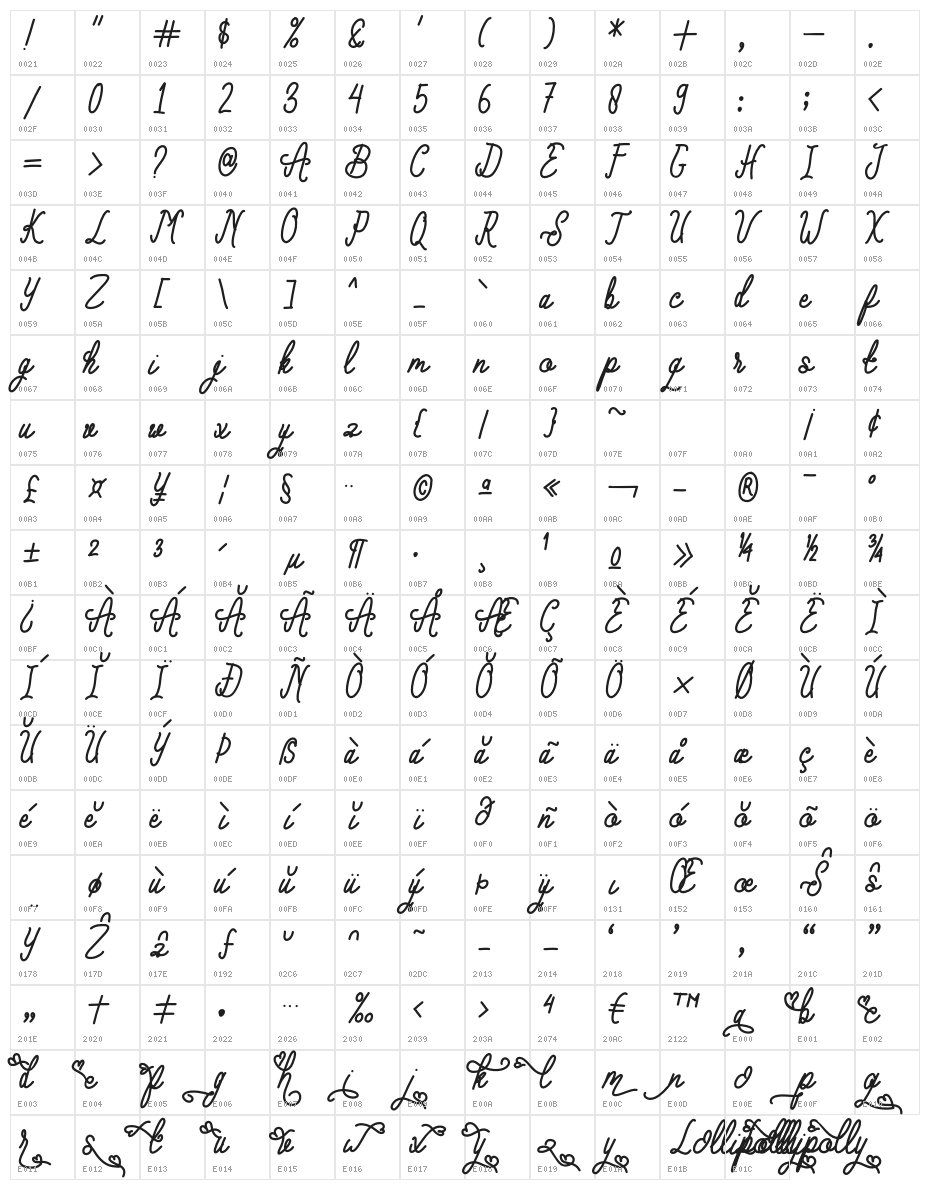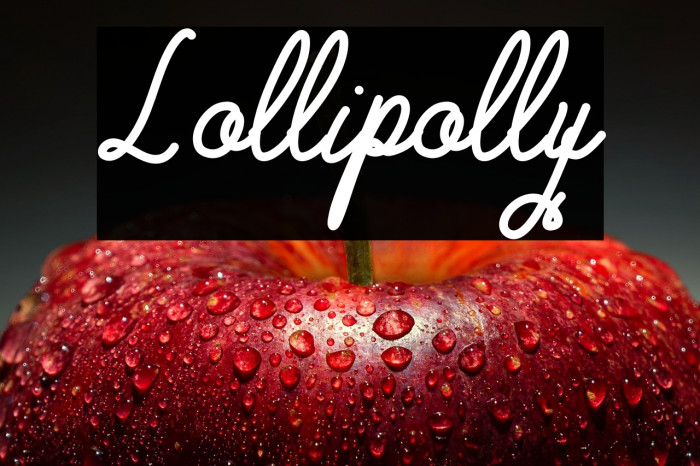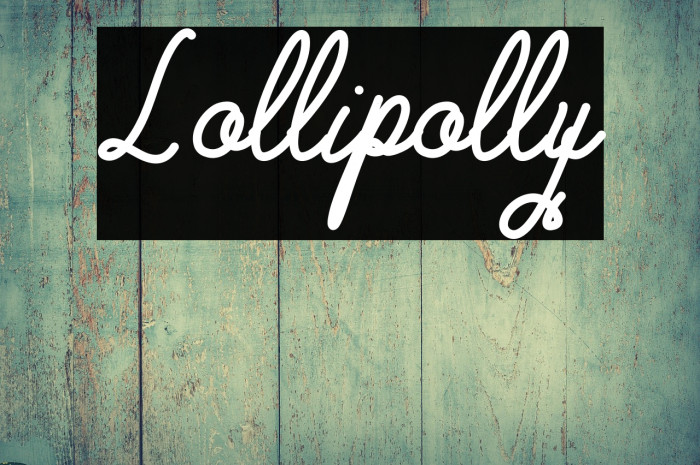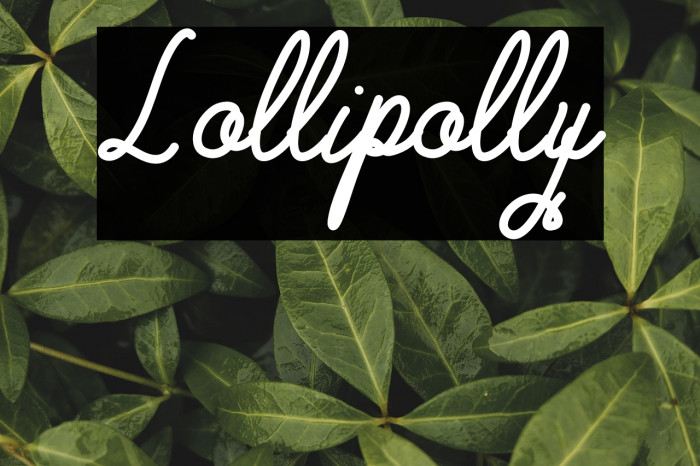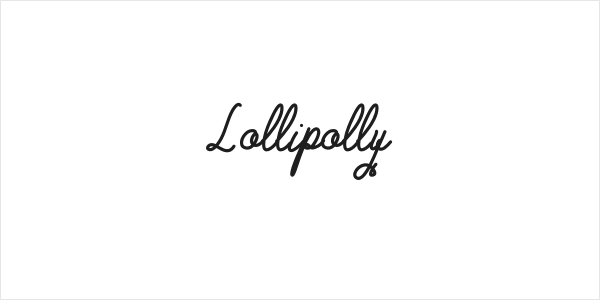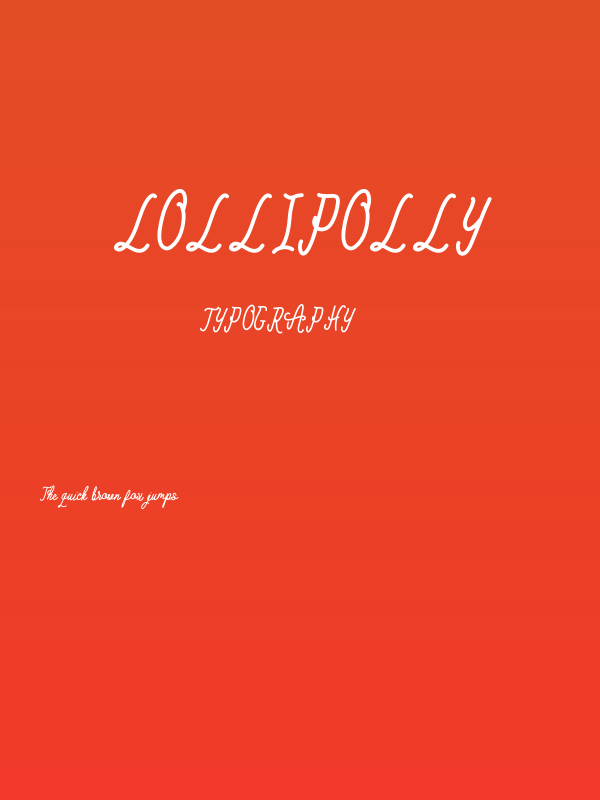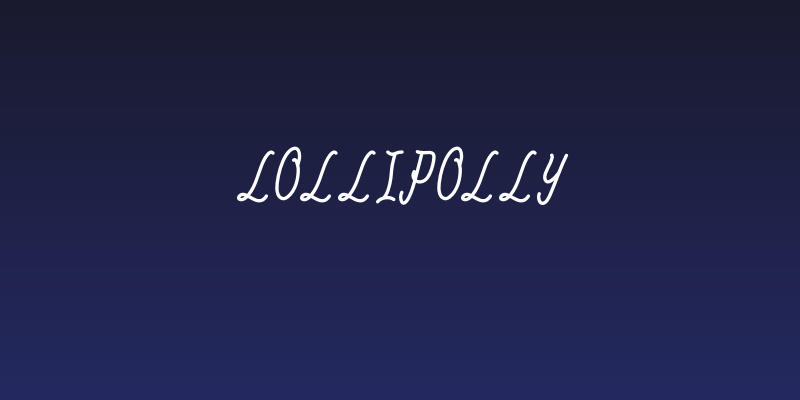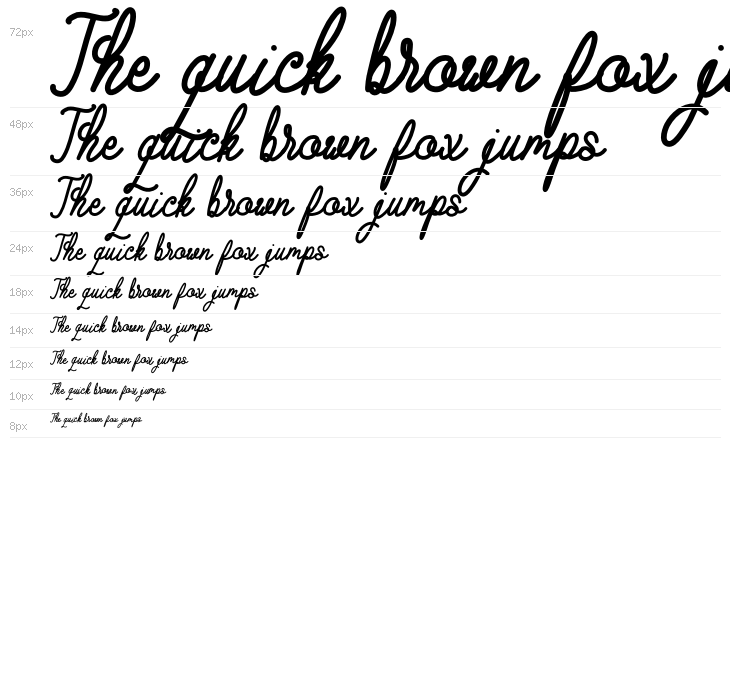
Lollipolly Font
Lollipolly Description
This font exudes a playful and whimsical charm with its flowing, cursive script style. The characters are elegantly connected, creating a sense of fluidity and movement. The uppercase letters maintain a consistent height, while the lowercase letters feature distinctive loops and swirls, adding to the font's dynamic appearance. The numbers and special characters are crafted with the same attention to detail, ensuring a cohesive look across all elements. This font is perfect for projects that require a touch of elegance and personality, such as invitations, greeting cards, or branding materials.